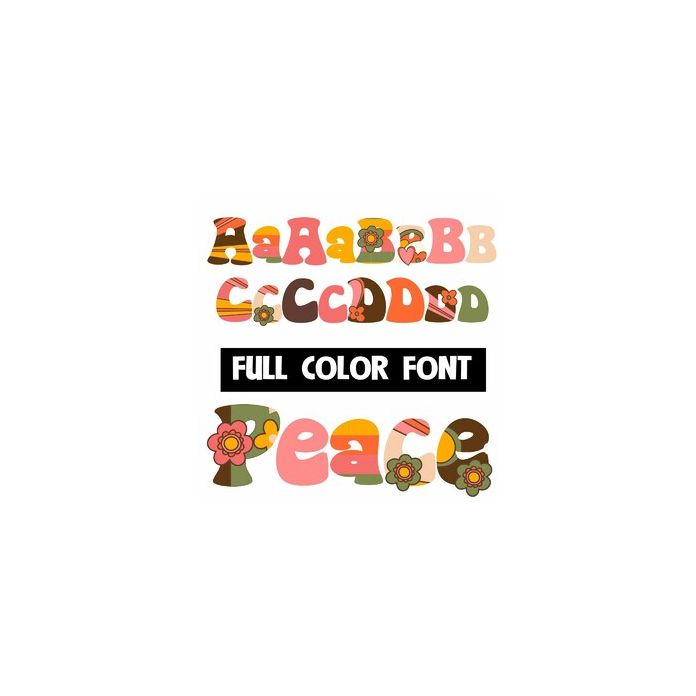
This full-color font features a retro font with a retro-design throughout. There is an alt upper and lowercase with additional colors that you can access through Silhouette's glyph map.